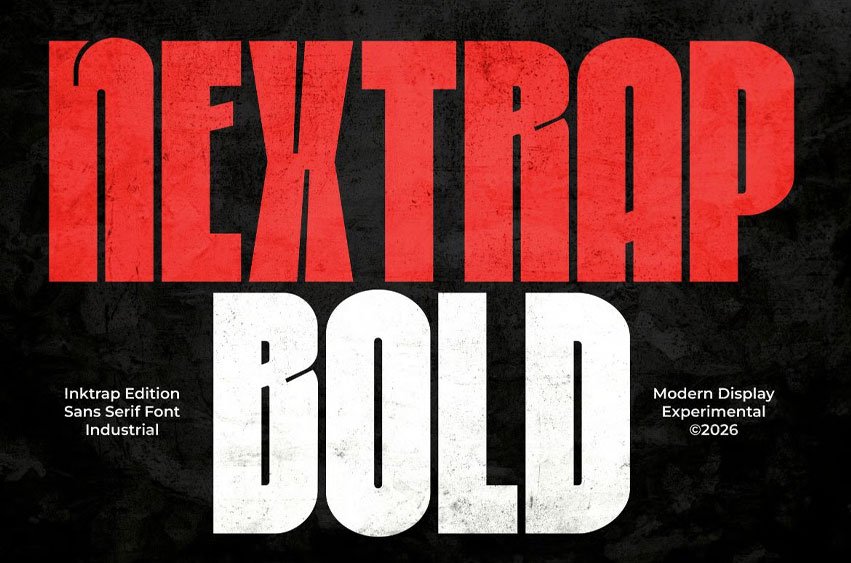
Nextrap Bold Font is a bold industrial display font with strong inktrap details and a modern experimental sans serif style. Designed with tall condensed letterforms, heavy shapes, and powerful visual impact, this font is perfect for creating bold headlines, logos, posters, editorial titles, music covers, event promotions, technology branding, gaming graphics, social media visuals, and modern creative layouts.
With its sharp industrial character and futuristic display style, Nextrap Bold brings a strong, loud, and memorable look to any design that needs high contrast, bold typography, and modern visual energy.